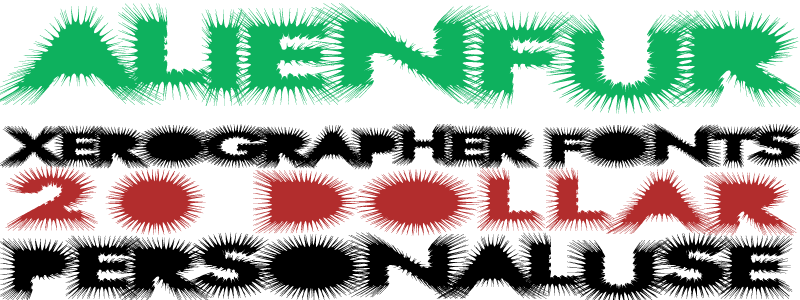
Preview and download AlienFur Font. Created by Xerographer Fonts in Techno Sci-fi styles with Donationware license.
Alien Fur! AlienFur! A creepy furry fuzzy tech font! download and try for FREE! UNLIMITED PERSONAL USE FOR $20 DONATION! PayPal: maxinfeld@hotmail.com add xerographer fonts on FB: facebook.com/infeld |